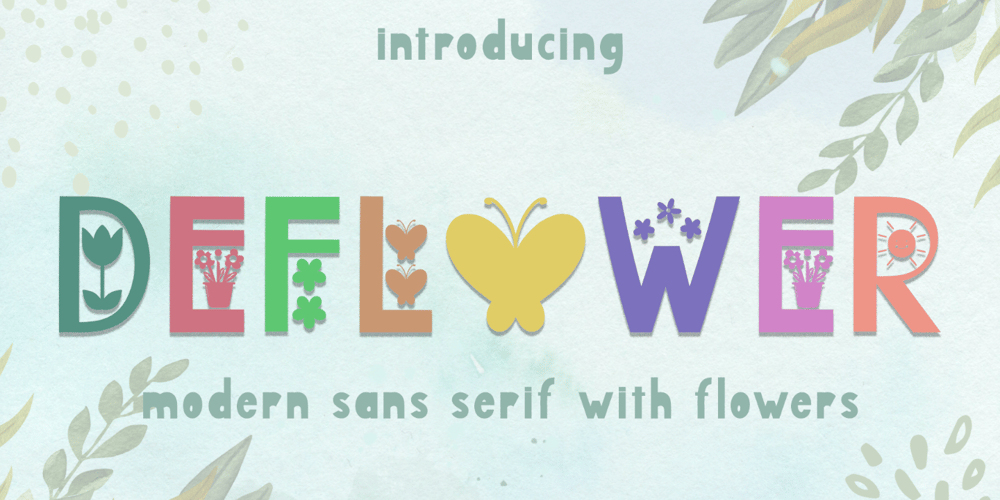
Deflower Font Family was designed by Isroni Yoga Prasetya and published by Yoga Letter. Deflower contains 1 styles and family package options. “Deflower” is a quirky and cute font with a floral decoration in each capital letter. This font is equipped with lowercase, uppercase, numerals, punctuations, and multilingual support. It is suitable for spring, Easter, weddings, photography, and so on.